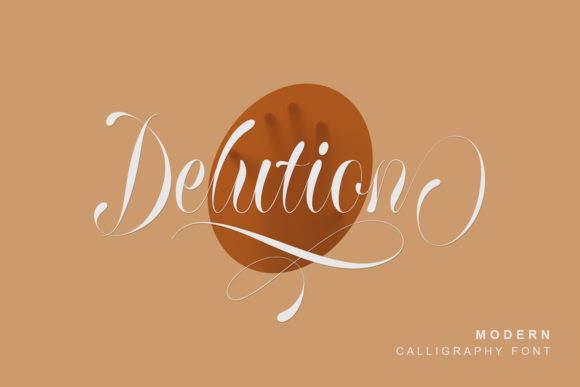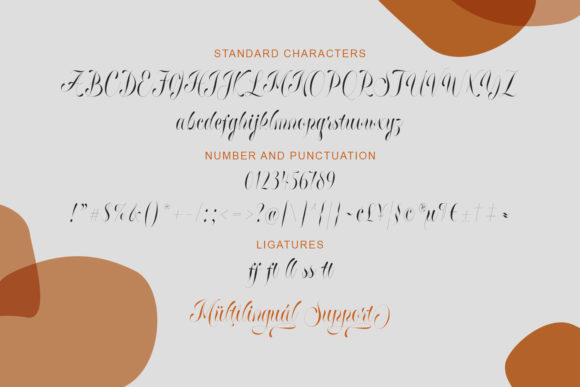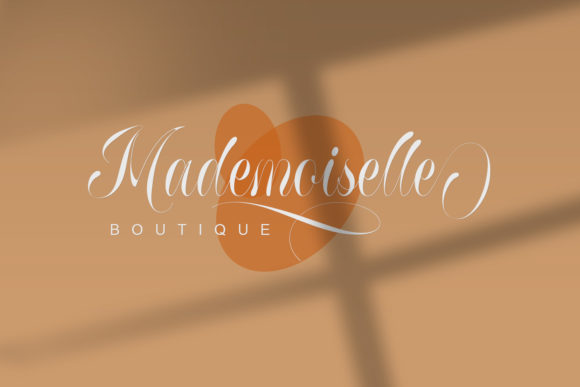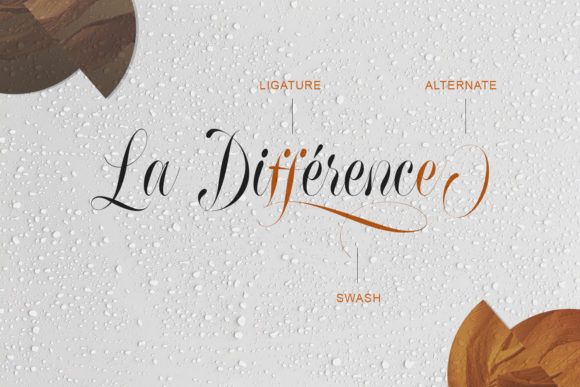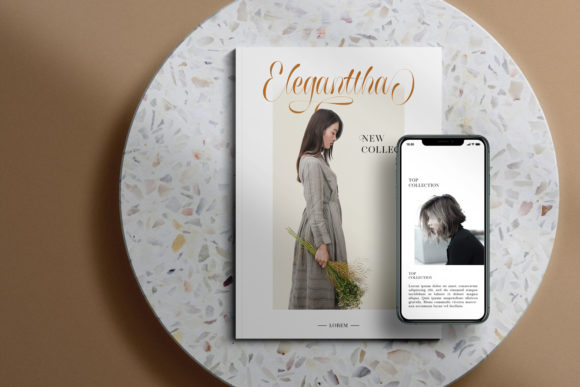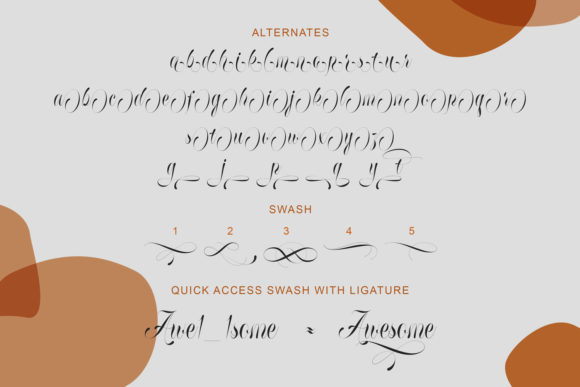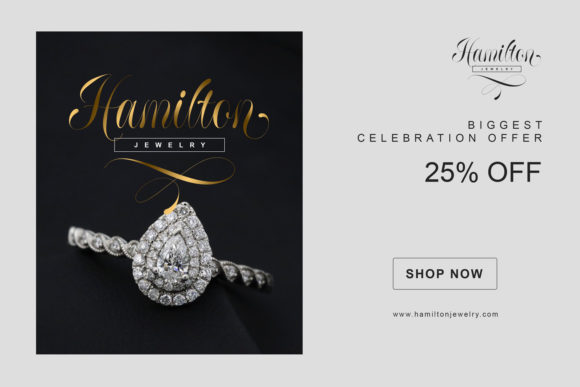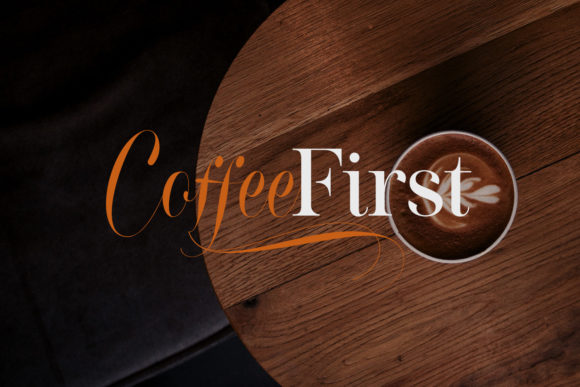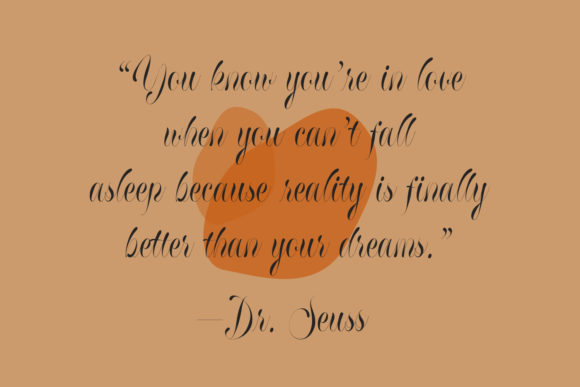
Delution Font
About Delution Font
Delution is a beautiful and flowing script font with a modern style. This gentle font will look gorgeous on a variety of design ideas.